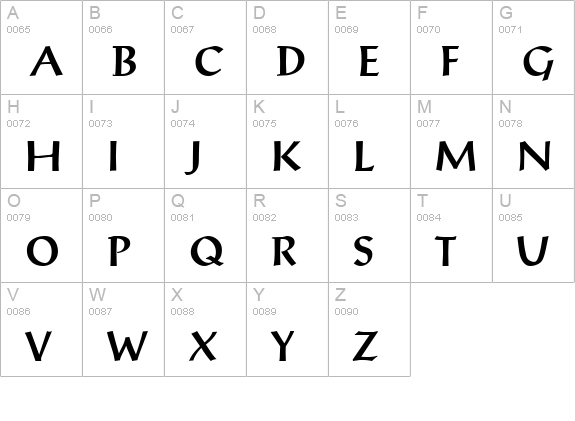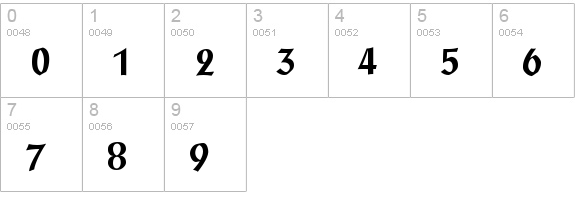
TR ProseAntique Bold Font Details
TR ProseAntique Bold is a strong, high-contrast variant in the TR typeface family \xE2\x80\x94 well suited to headlines, attention-grabbing titles, and strong calls-to-action.
TR ProseAntique Bold font is a classic and elegant serif typeface that exudes sophistication and timeless charm. With its bold and commanding presence, this font is perfect for adding a touch of refinement to any design project. The graceful flourishes and intricate details of TR ProseAntique Bold make it a standout choice for headlines, titles, and other prominent text elements. What's even better is that TR ProseAntique Bold font is available for free download at FontsMarket.com. This means you can easily access this stunning typeface and enhance your creative projects without any cost. So why wait? Elevate your designs with the beauty and grace of TR ProseAntique Bold font today!